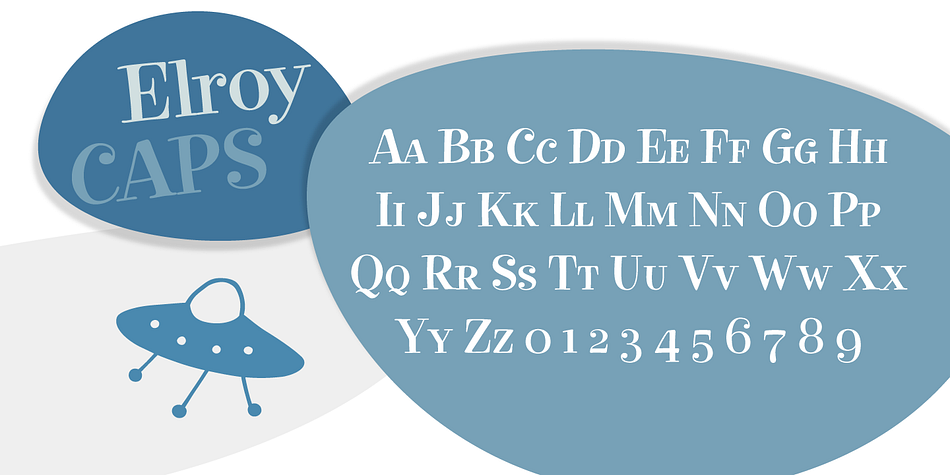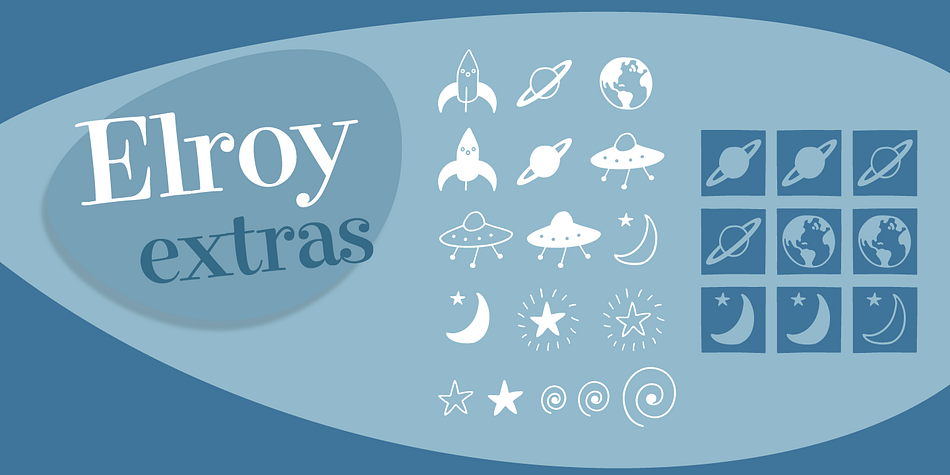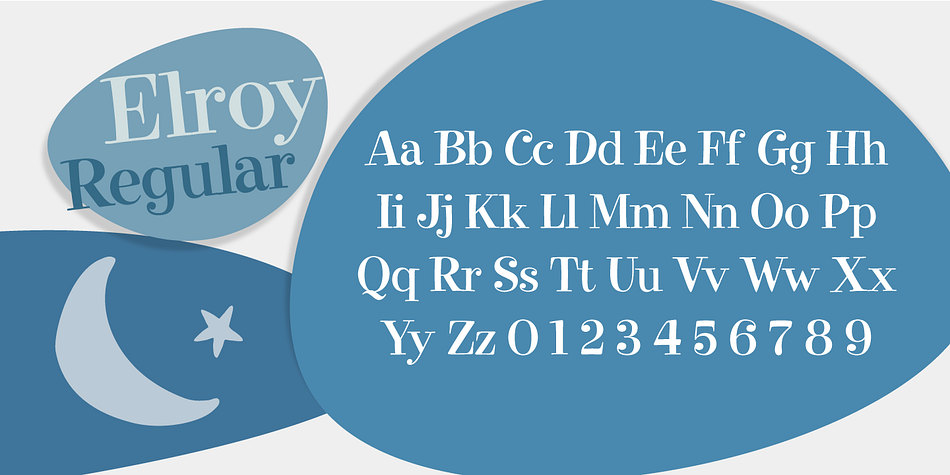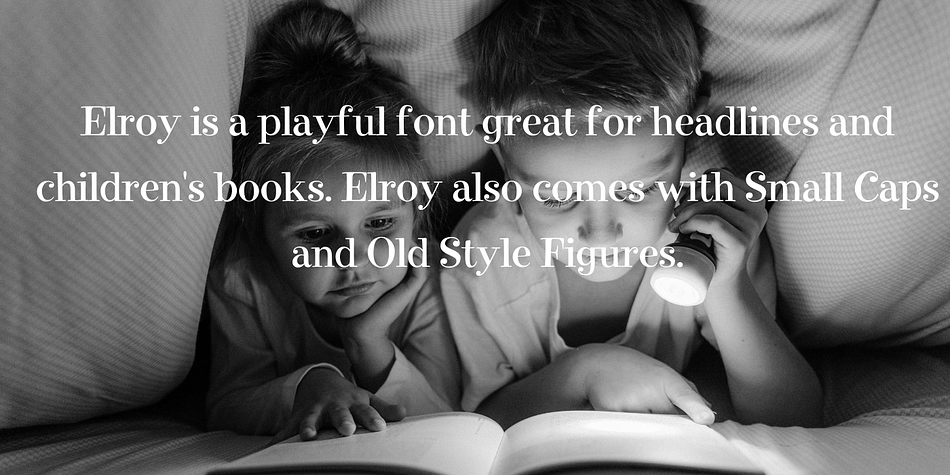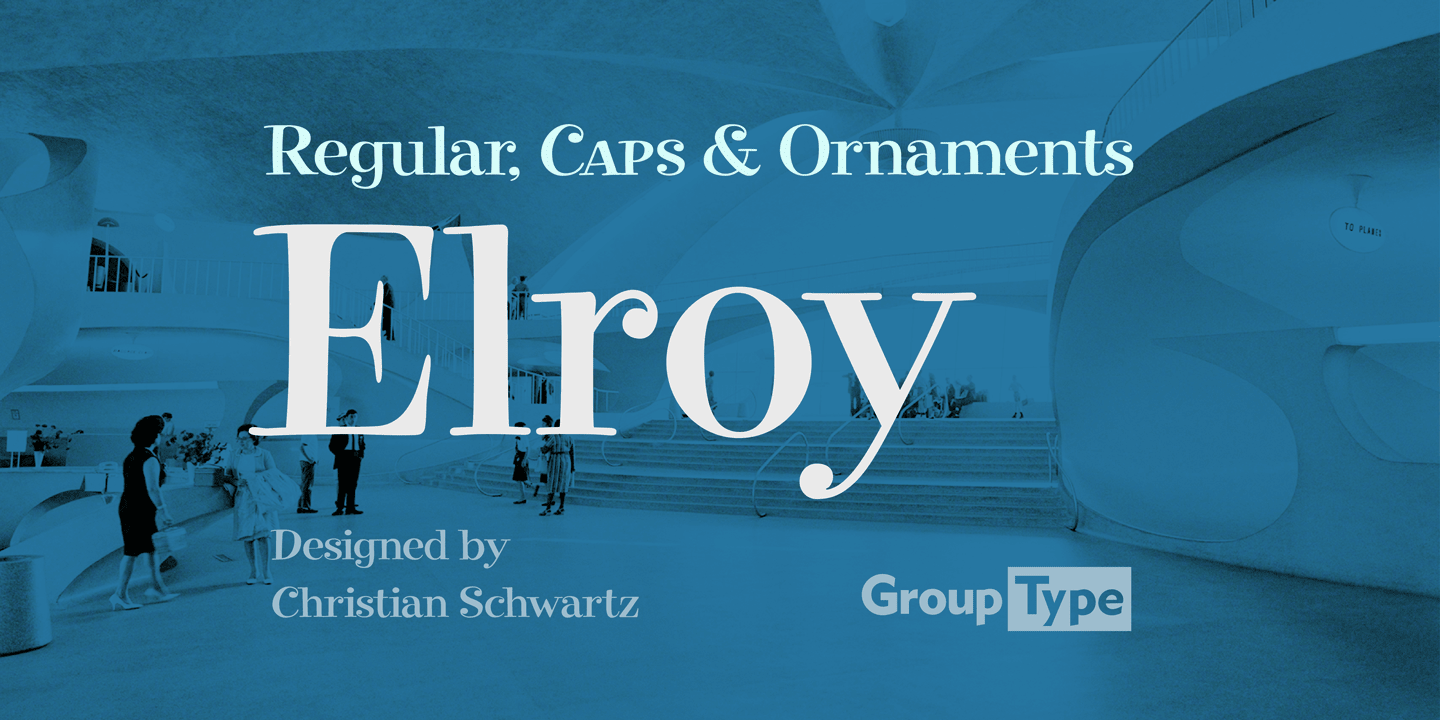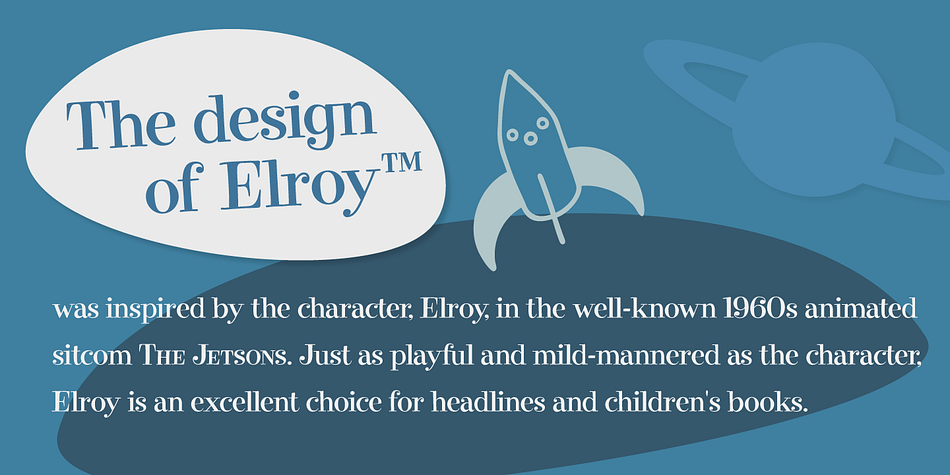
Elroy
Designed by Christian Schwartz, Elroy is a hand display, serif and dingbat font family. This typeface has three styles and was published by FontHaus.
The design of Elroy™ was inspired by the character, Elroy, in the well-known, 1960s animated sitcom, The Jetsons. Elroy (the font) is as playful and mild-mannered as the character.
A great playful font for headlines and children’s books that comes with Small Caps,  Old Style Figures and some ornaments.